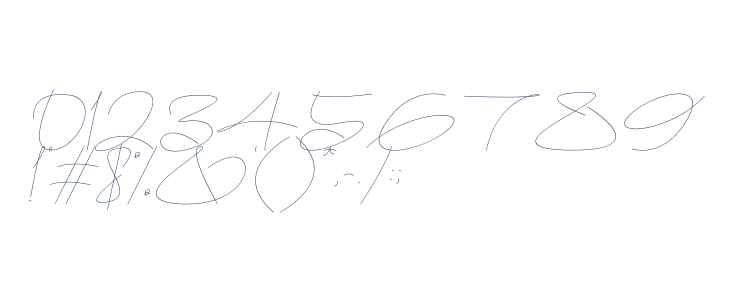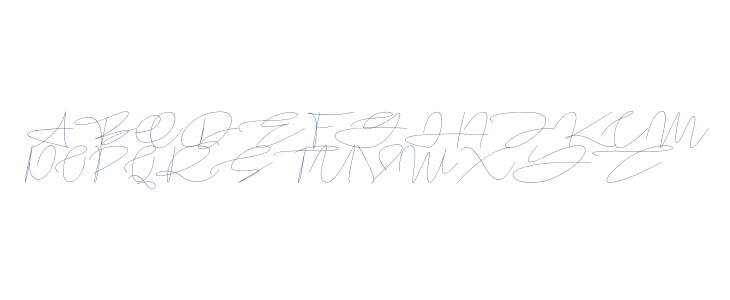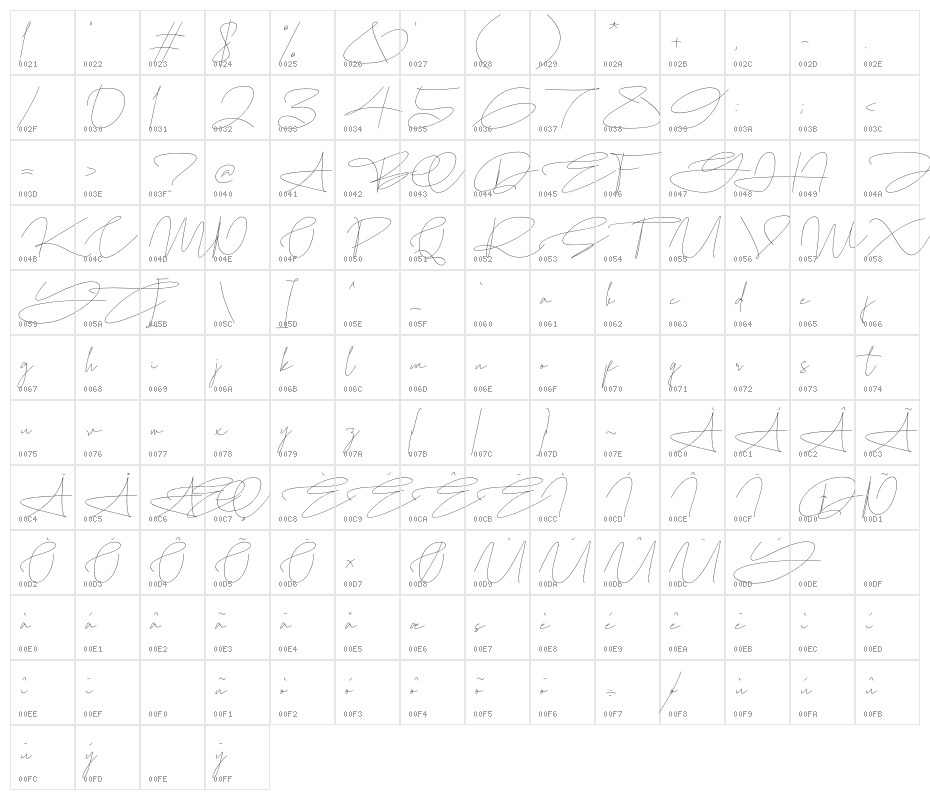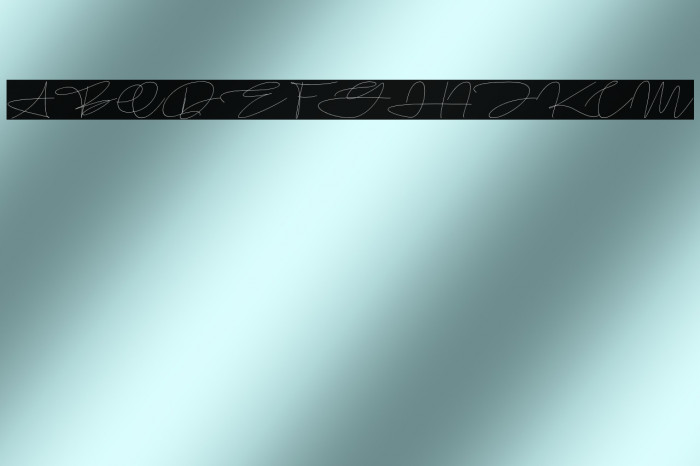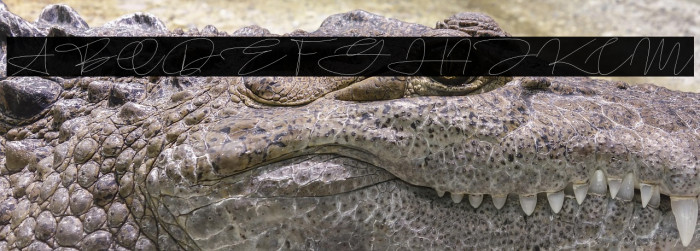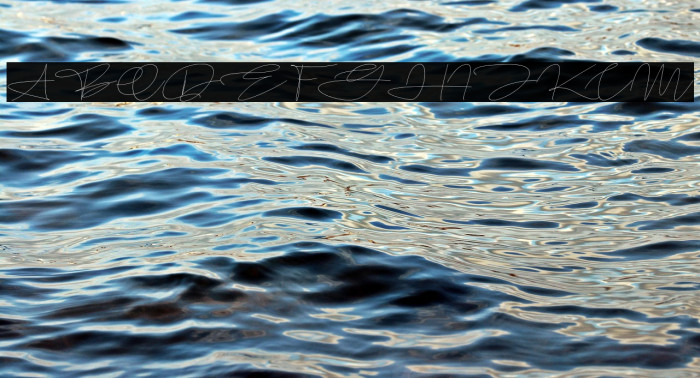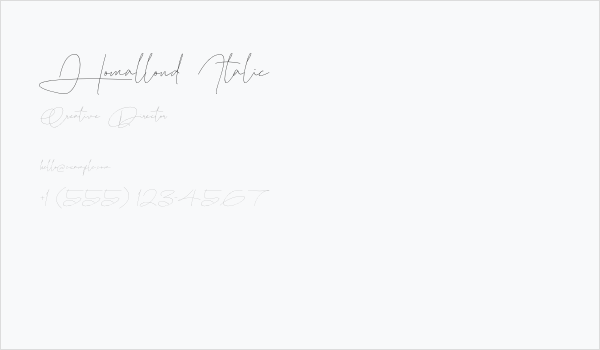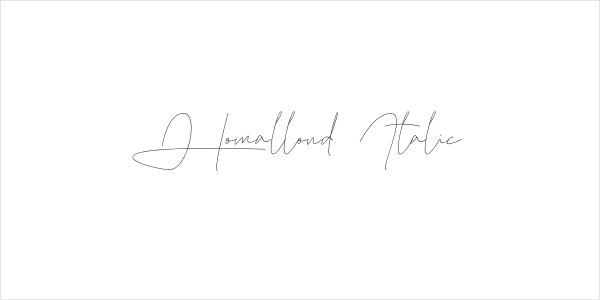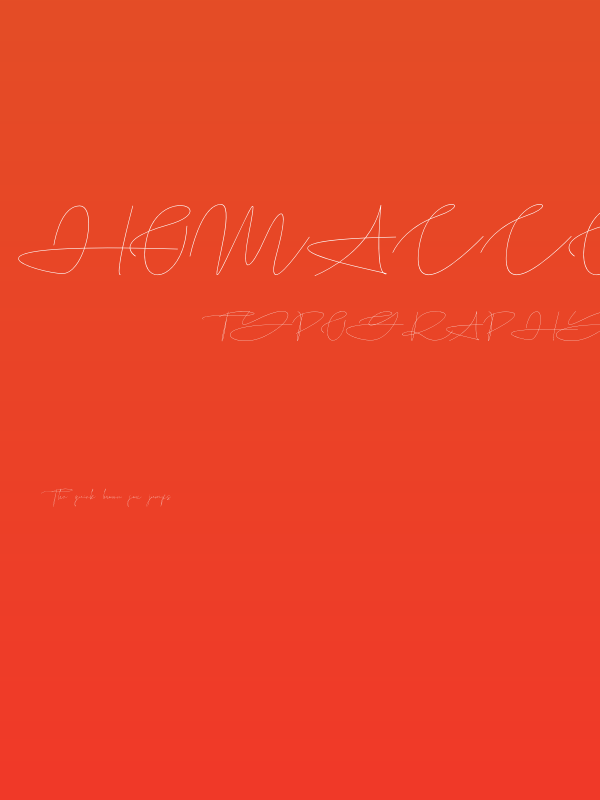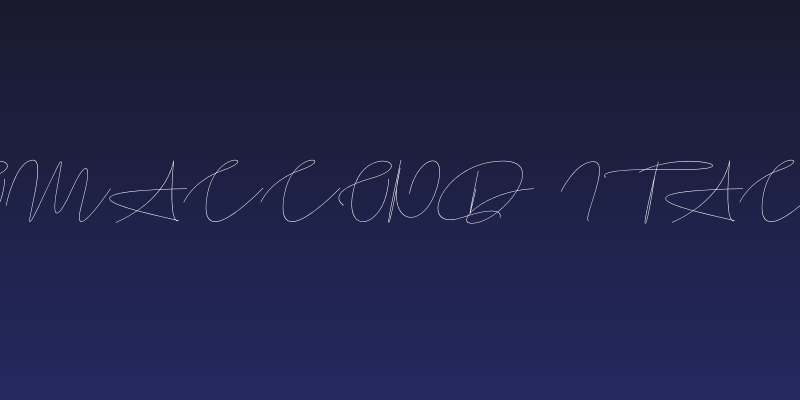
Homallond Italic Font
Homallond Italic Description
A delicate, cursive handwritten script font with a light, airy appearance, featuring flowing, connected characters and elegant strokes.
| Overall Style | Elegant, Delicate, Artistic |
| Use Case | Invitations, stationery, branding, artistic projects |